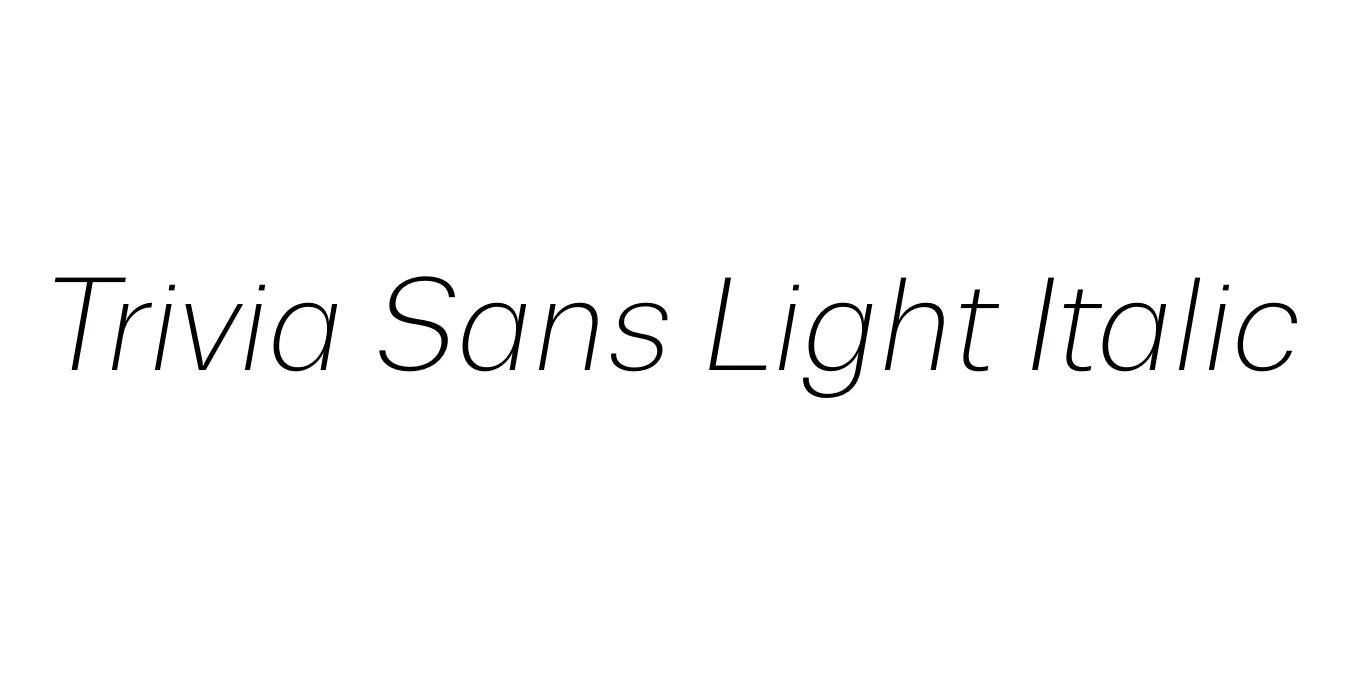
Trivia Sans Light Italic
Designed by František Štorm
Trivia Sans is a sophisticated contemporary sans-serif family designed by František Štorm as part of the extensive Trivia superfamily, which includes Serif, Grotesque, and Slab variants. It was developed to meet the demanding needs of editorial design and corporate identity, offering a balanced aesthetic that bridges the gap between mechanical precision and humanist warmth. The Light Italic weight is particularly noted for its graceful slant and airy feel, making it an excellent choice for subtle emphasis in long-form text.
Released through the Storm Type Foundry, the typeface features open apertures and a generous x-height that ensures high legibility even at smaller point sizes. Trivia Sans Light Italic has gained popularity among typographers for its versatility and the technical refinement synonymous with Štorm's portfolio. Its clean lines and rhythmic stroke modulation make it a robust tool for modern branding, digital interfaces, and high-end print publications.
Trivia Sans Light Italic Best Uses
Ideal for secondary headings, pull quotes, and photo captions in luxury magazines.
Perfect for elegant taglines and sophisticated brand communication materials.
Excellent for body text emphasis and clean user interface elements.